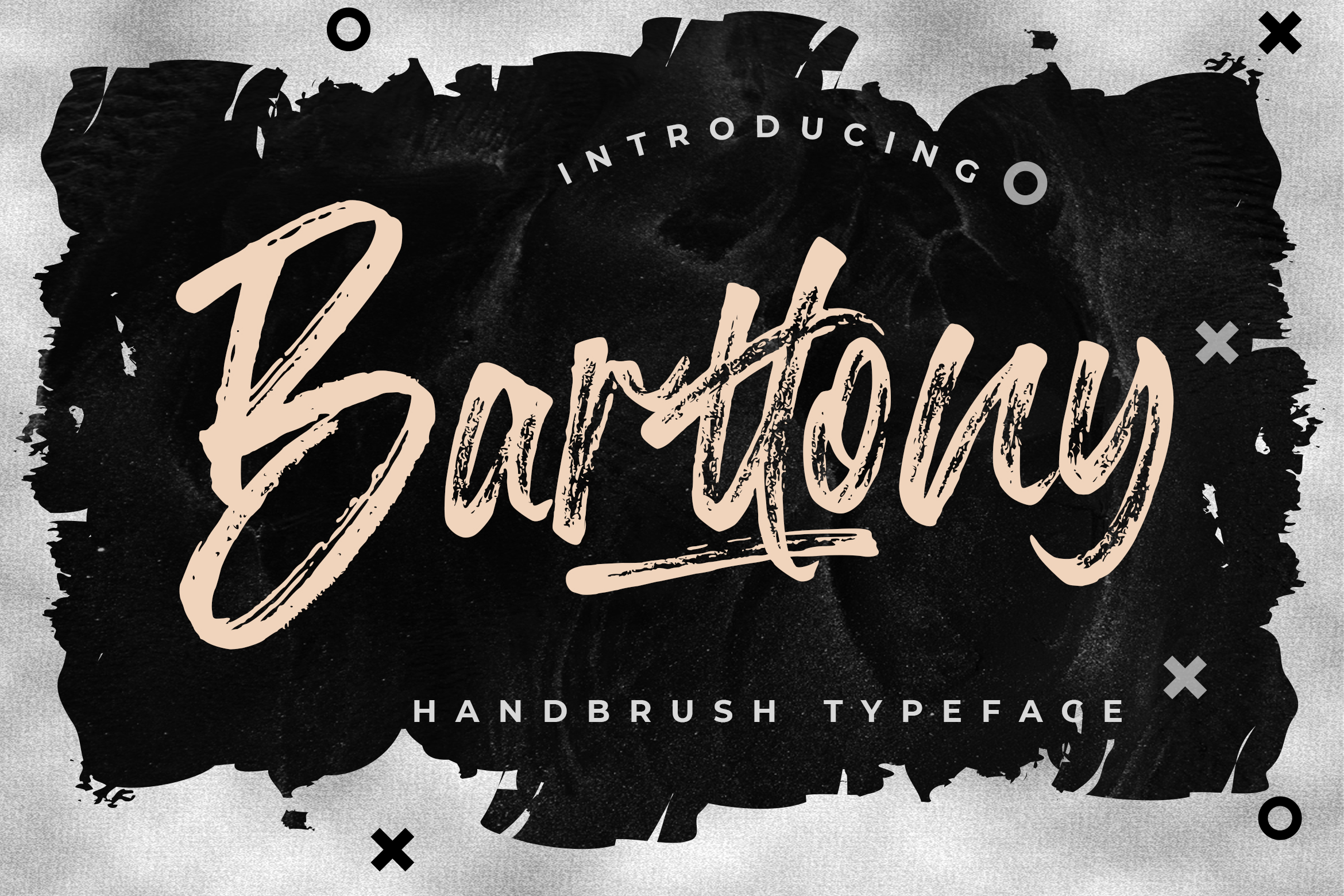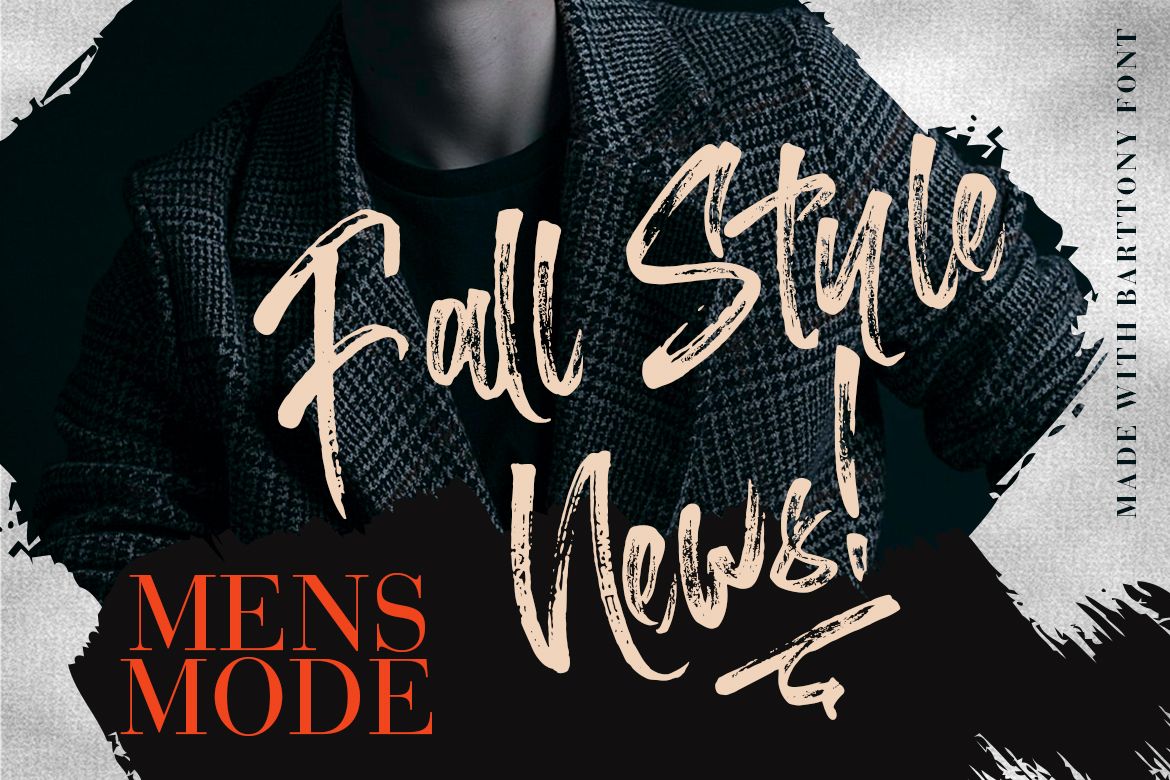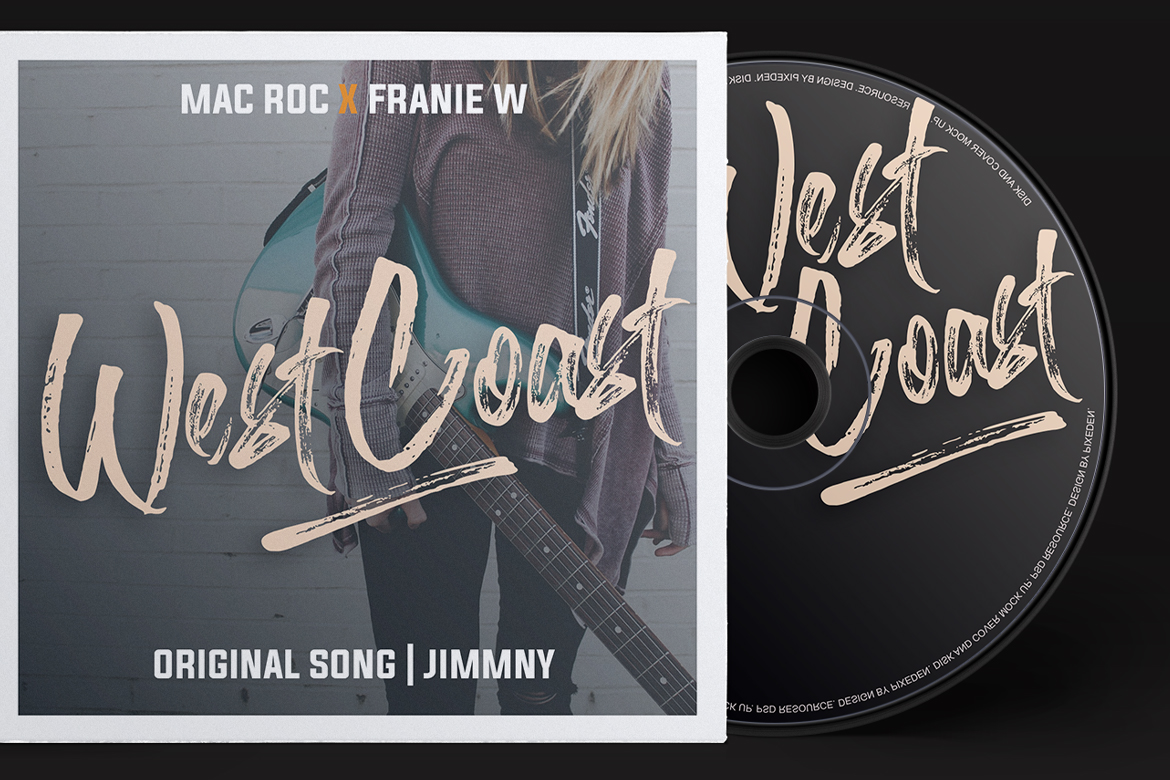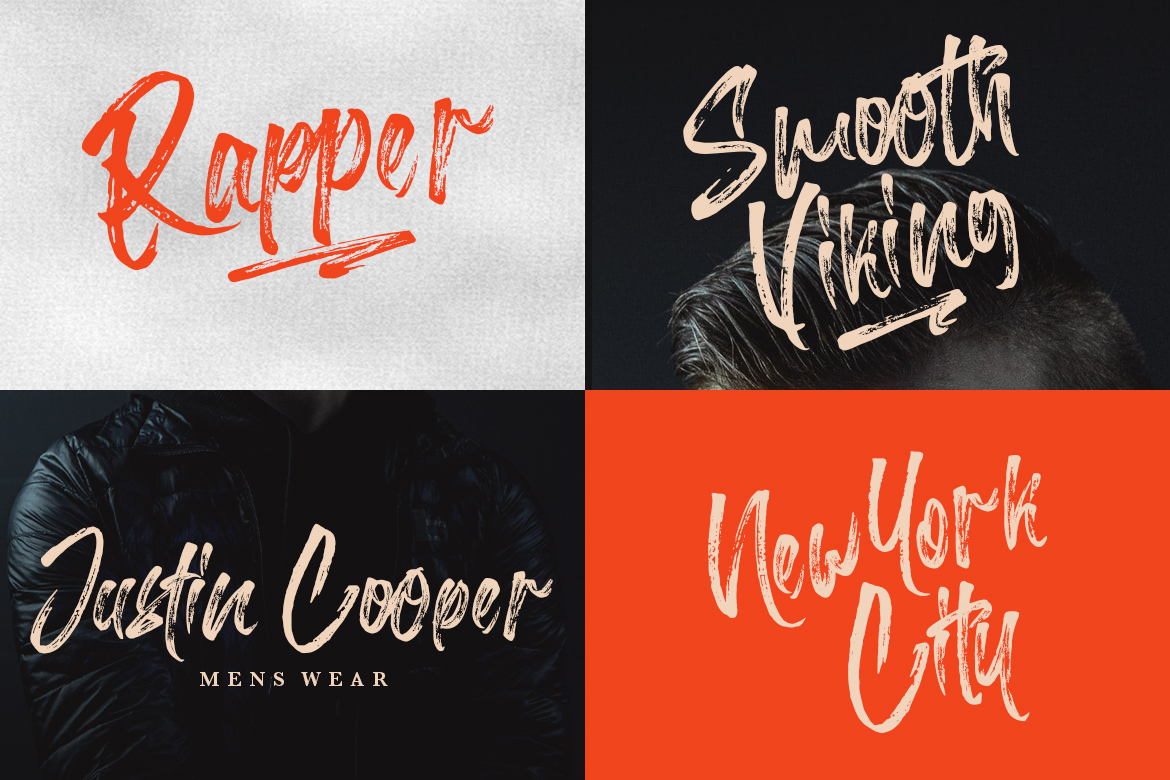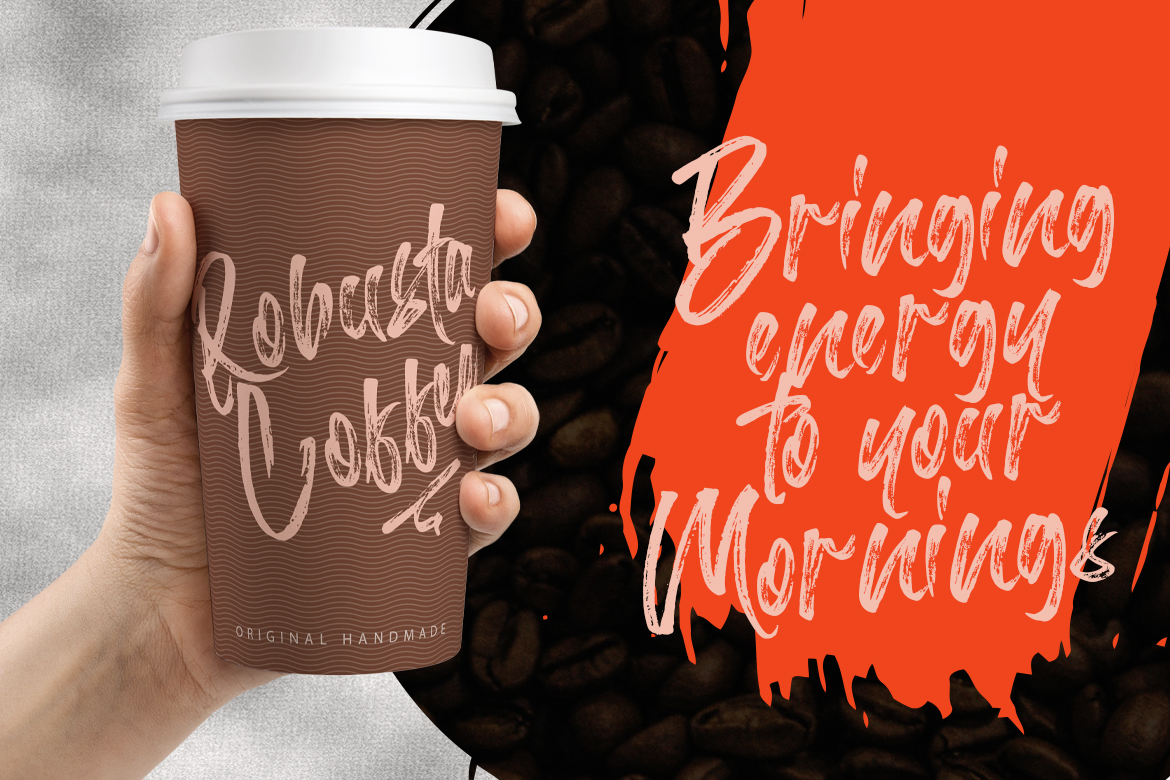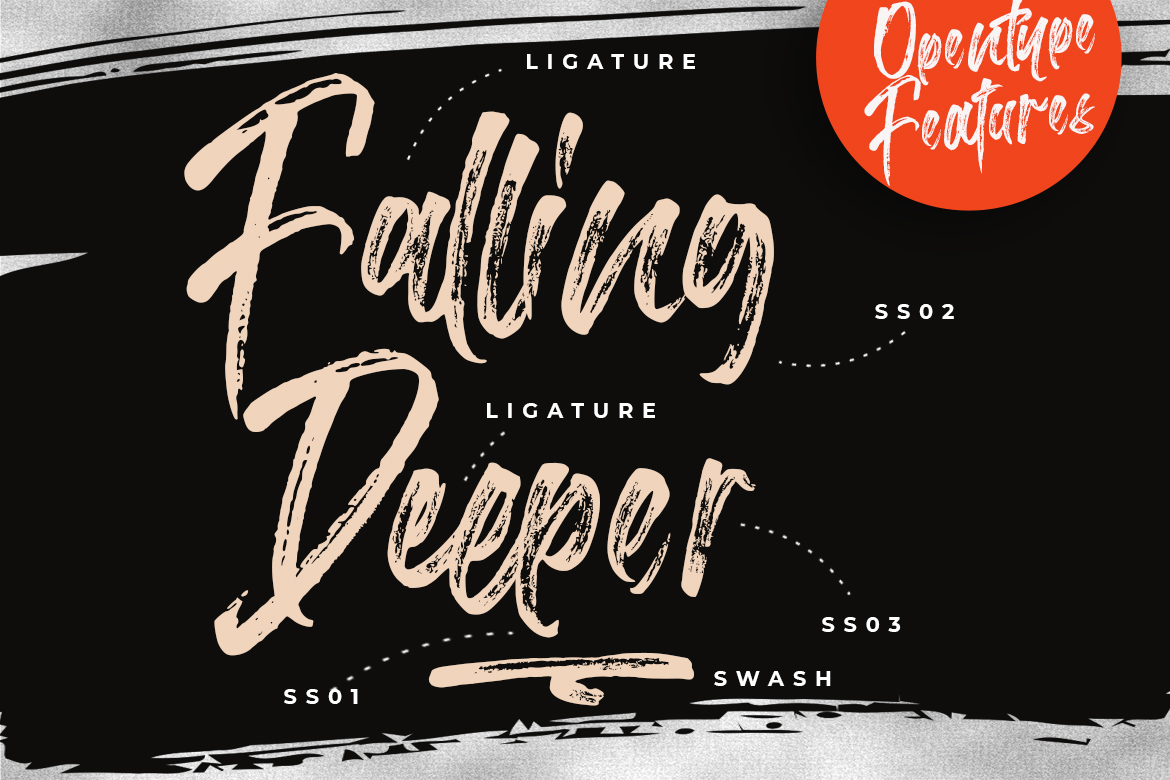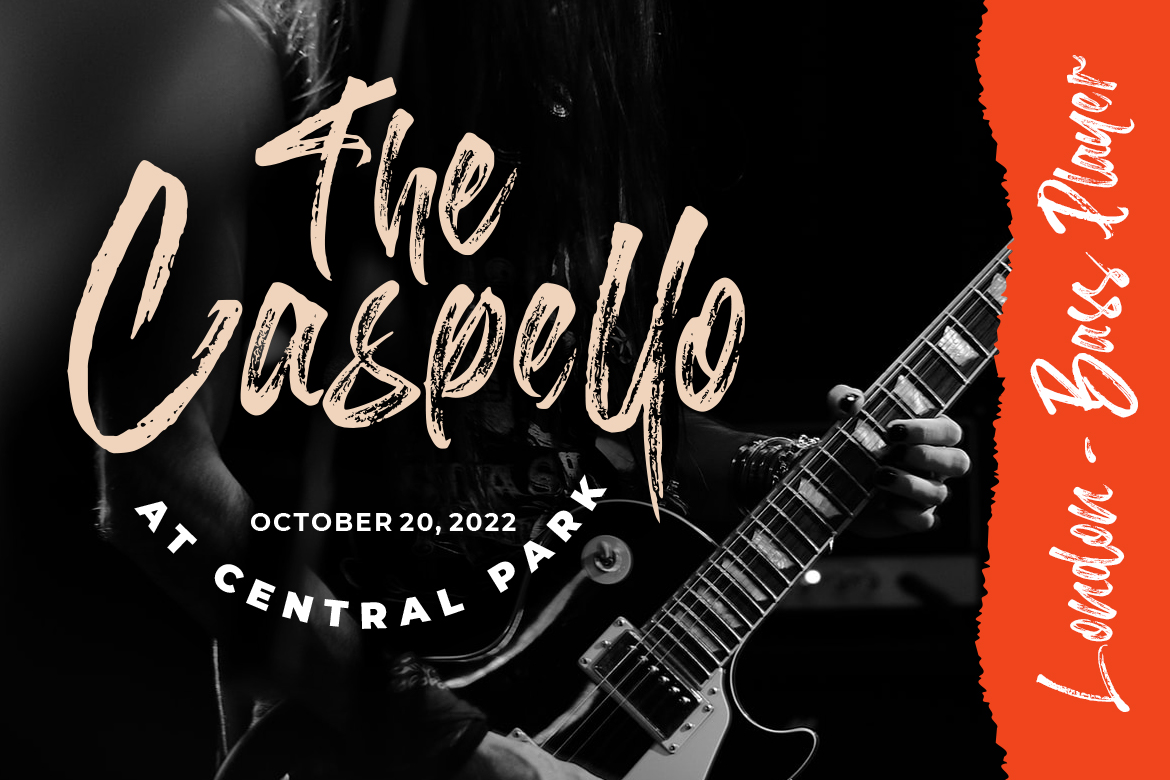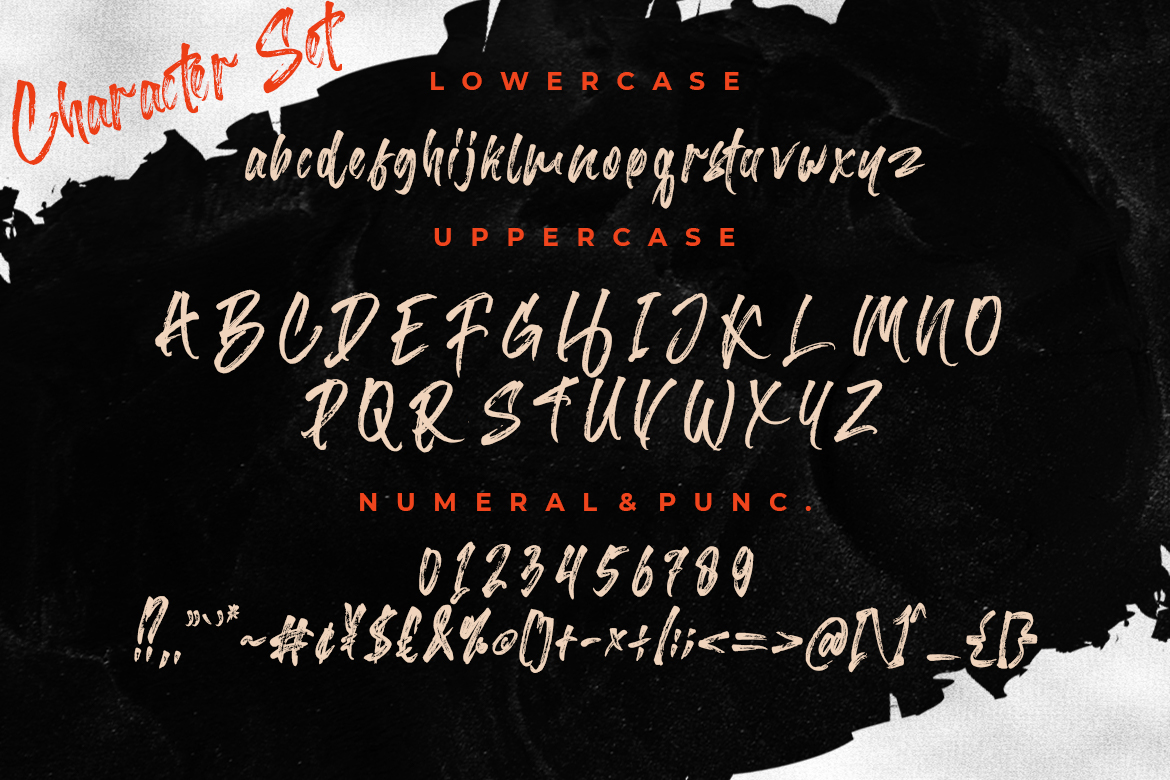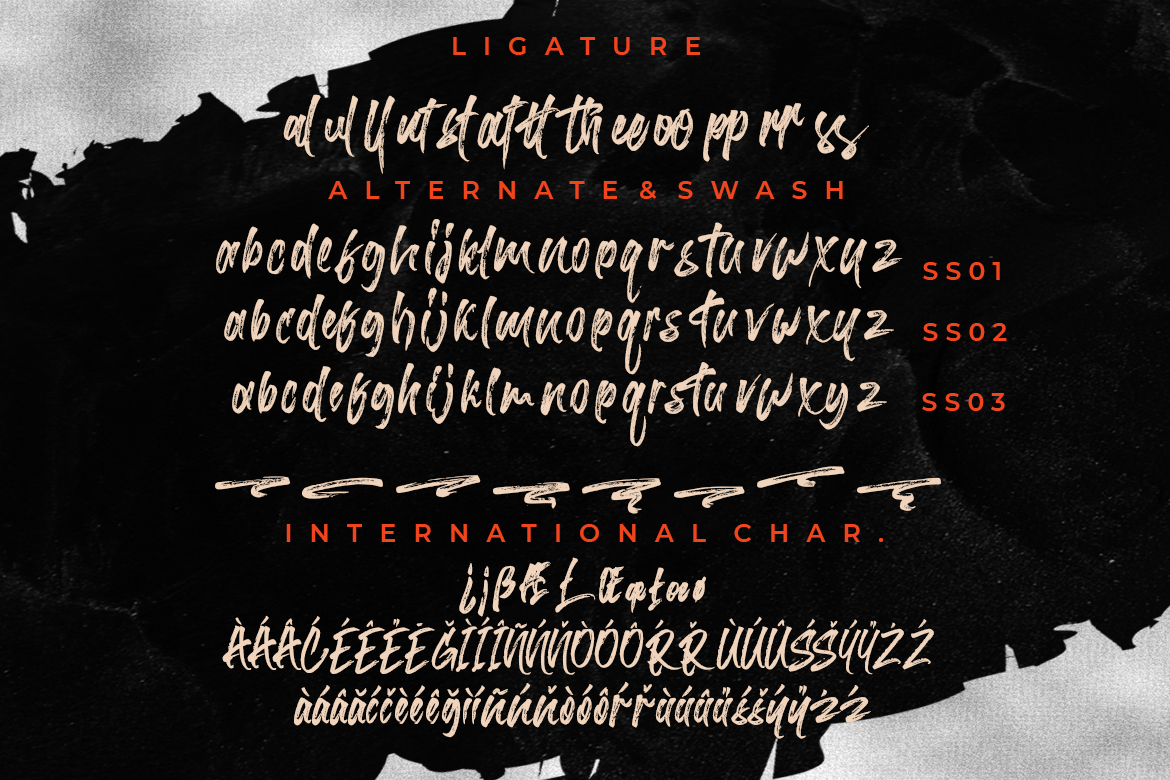
Barttony Handbrush Business Font
Introducing Barttony – A hand brush font with bold textures looks so natural and modern. This font will looks awesome and amazing in many way to your latest project. The font is perfect for movie title, logo, blogging, brand identity, book title, social media, branding, wedding invites, cards or simply use it in your next design project and suitable to use for many occasion.
• Ton of glyphs
• Ligature & Alternate